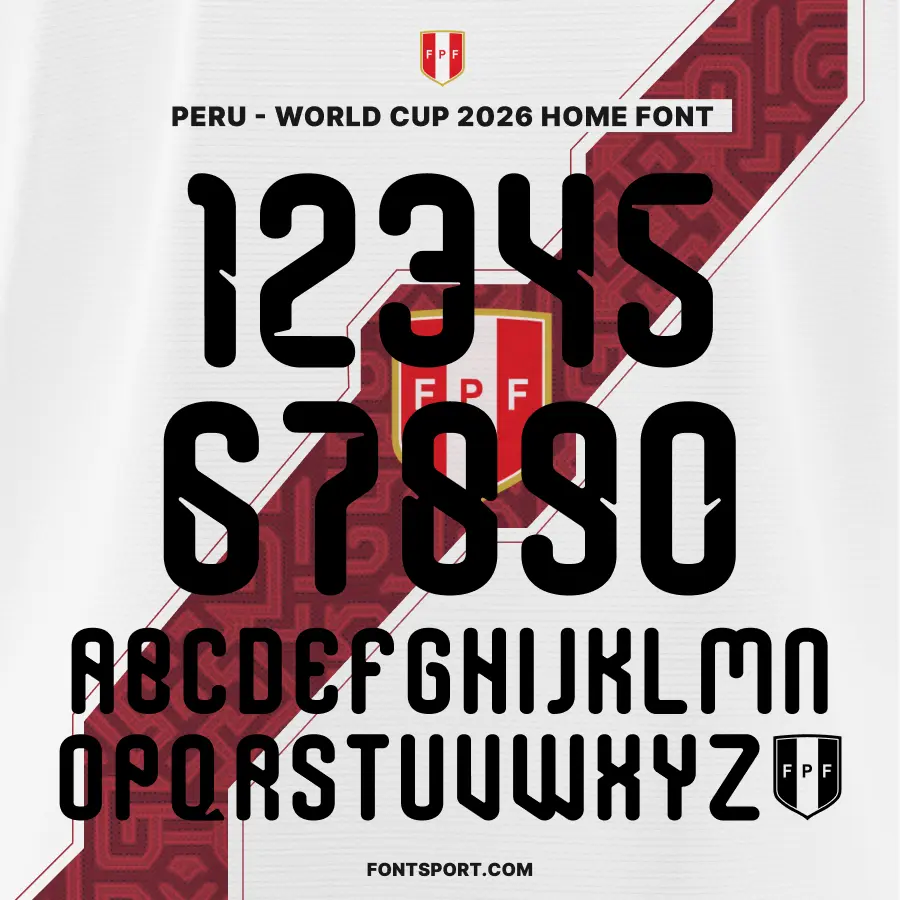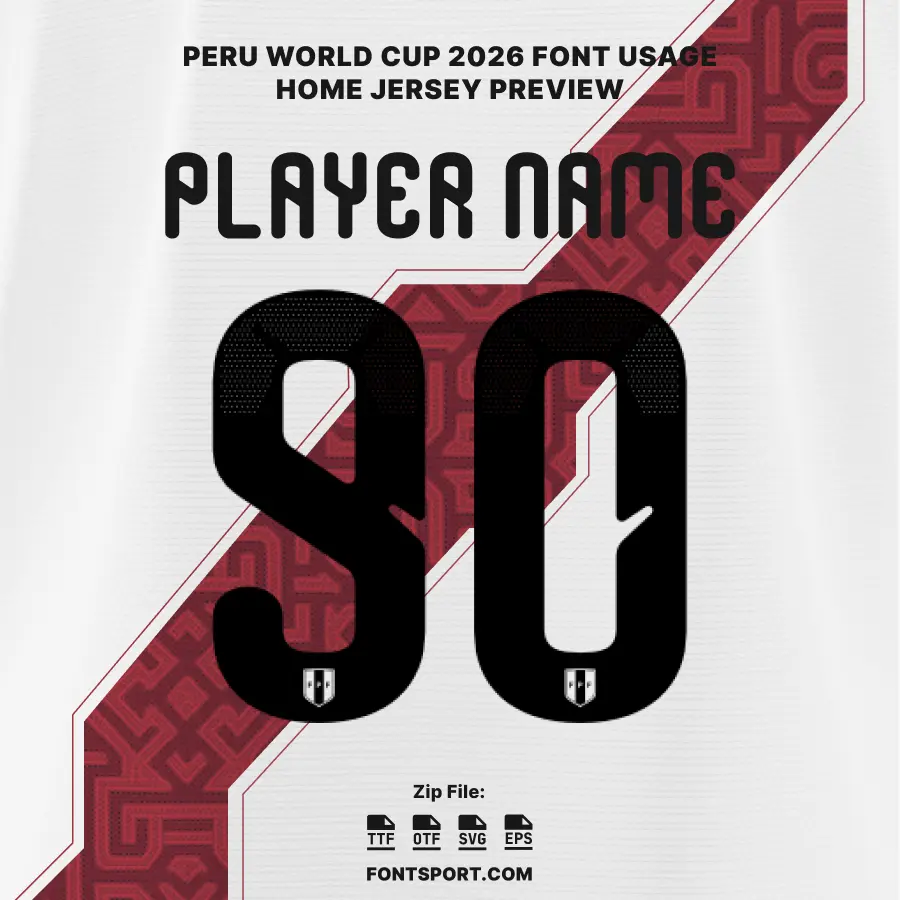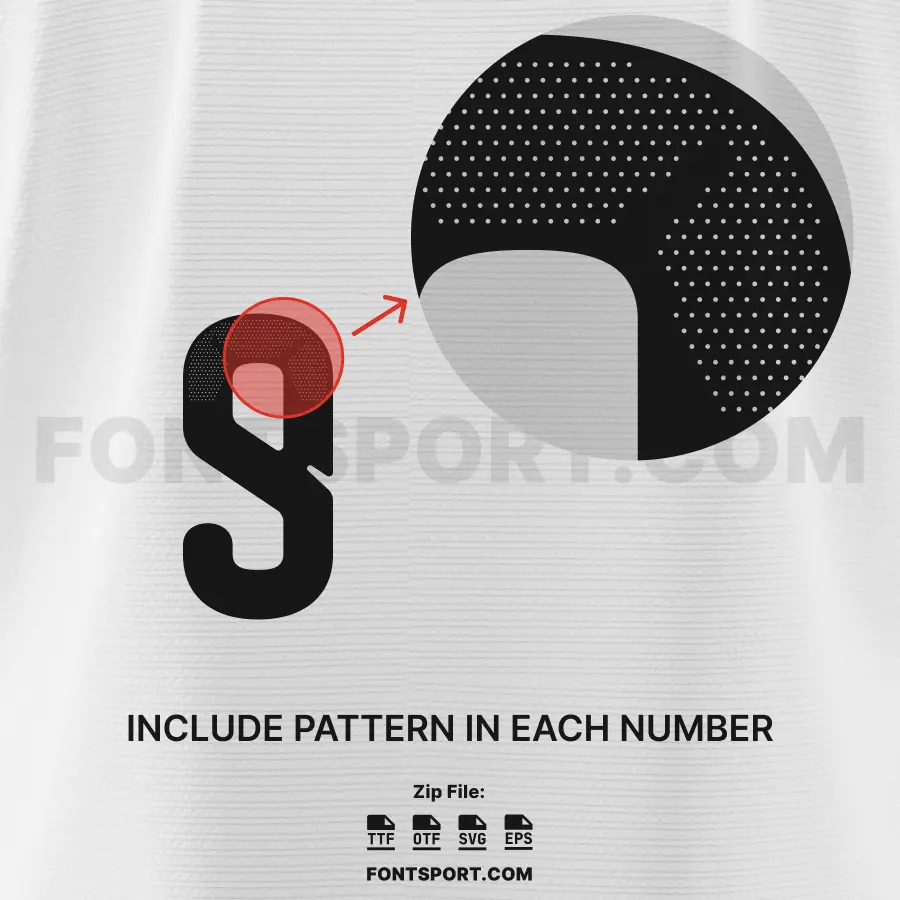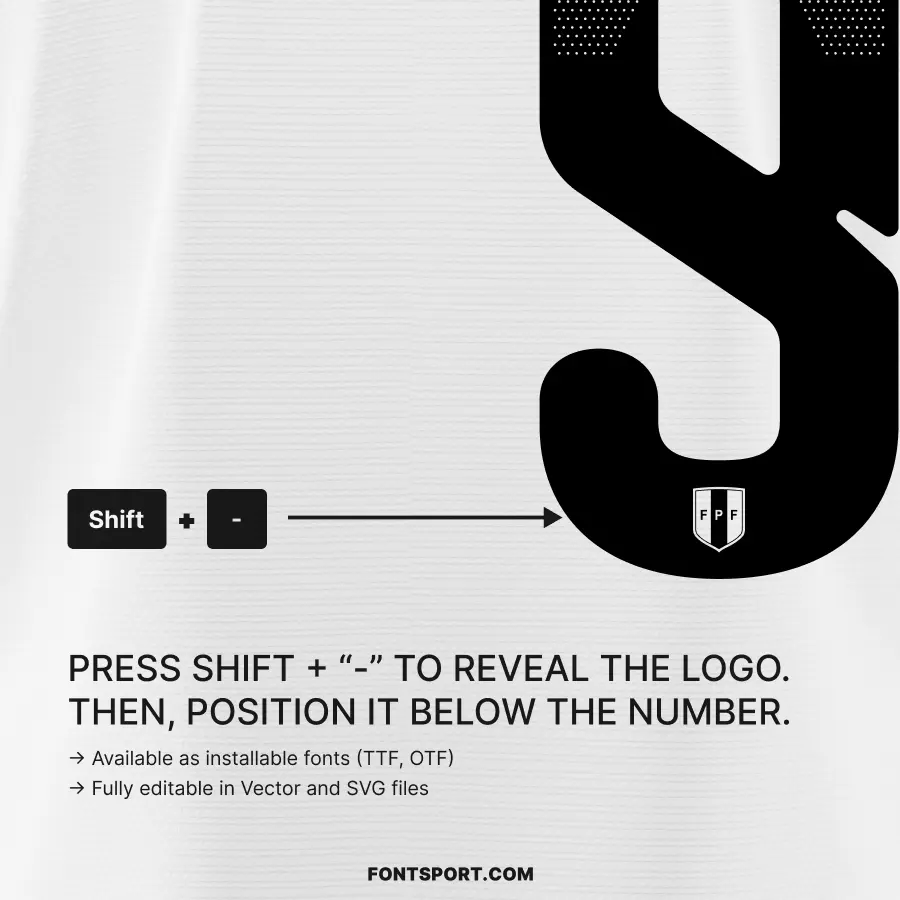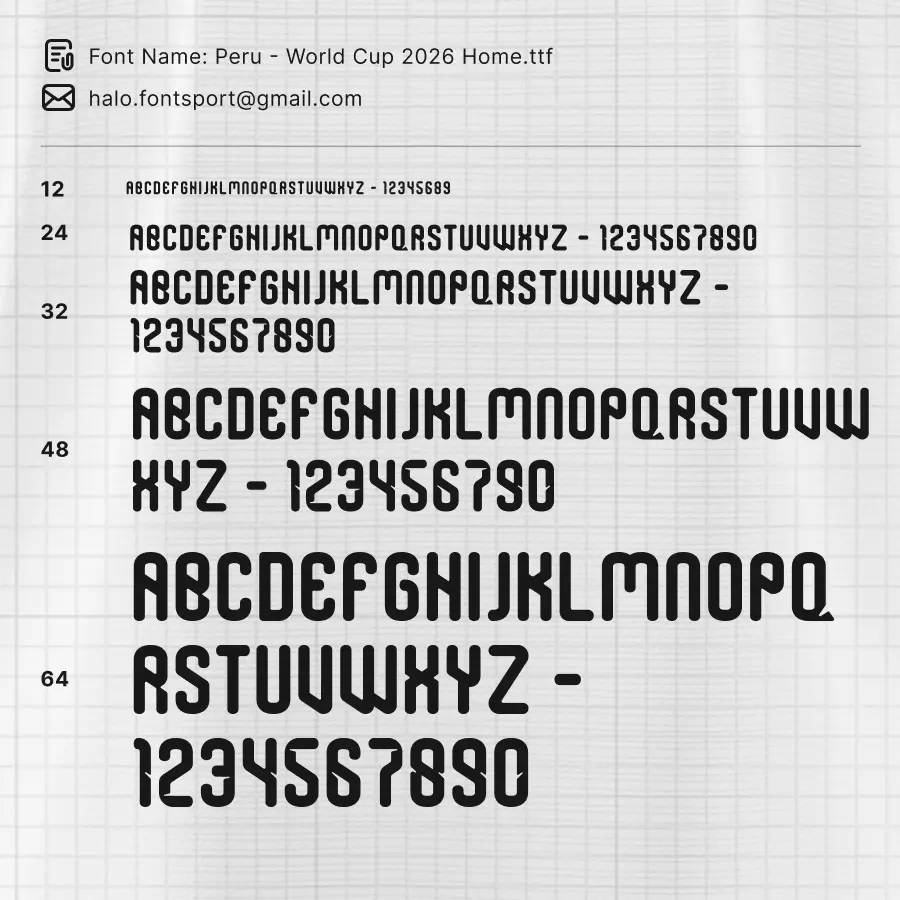
Channel Peru’s National Team Energy into Your Designs
The Peru World Cup Home 2026 Font Kit brings the distinctive visual identity of Peru’s national team to your creative projects. Inspired by the home jersey designed for the FIFA World Cup 2026 campaign, this football font supports custom jersey graphics, fan merchandise, posters and digital visuals—giving your work a professional, team-connected feel.
• ✅ Full uppercase A–Z letters and 0–9 numbers for nameplates and numbering
• ✅ Built-in logo glyphs—just type to display Peru’s crest
Whether you’re creating a mock-up of Peru’s match-day kit or designing fan merchandise, this font kit keeps your typography consistent and bold. Moreover, the vector versions ensure your designs stay sharp at any size or format. In addition, the built-in crest glyphs simplify your process by eliminating the need for separate logo files, speeding up your workflow and preserving consistency.
• New Home Kit Unveiled: Peru’s 2026 World Cup home kit is part of Adidas’s largest ever release of 22 national team kits ahead of the tournament. The design emphasises Peru’s national identity—from coastline to highlands and rainforest—and features a refreshed red-sash graphic with abstract motifs.
These developments reflect both Peru’s evolving visual identity and the urgency in their campaign—a perfect cultural narrative to tie into this font kit.
Peru World Cup Home 2026 Font Kit